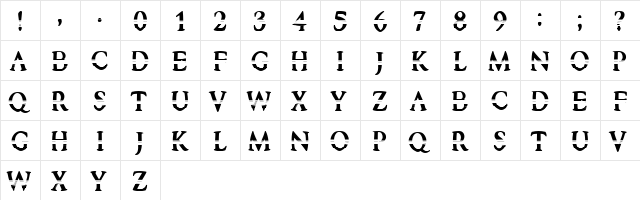
Horizont Regular
Design Context for Horizont Typeface
Horizont offers clean, dependable letterforms without strong stylistic allegiance, making it a practical choice for designers who need flexibility.
Pro Tip: Pair Horizont with a font of contrasting weight or personality to build a more expressive typographic hierarchy.